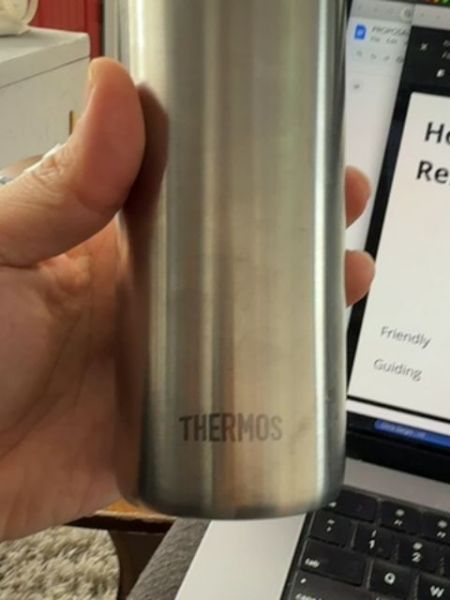
THERMOS
A vacuum-insulated container used to keep beverages hot or cold for extended periods, suitable for both outdoor and indoor use.
1904
Germany
The typography is bold and sans-serif, effectively conveying a sense of strength and reliability. The font is clear and legible, enhancing the utilitarian aspect of the product design. Its simplicity complements the minimalistic aesthetic of the packaging.
The packaging is sleek and minimalistic, emphasizing functionality and durability. The stainless steel exterior gives it a modern and robust appearance, suitable for daily use.
- Invented by James Dewar in 1892.
- The term 'Thermos' has become synonymous with vacuum flasks.
- Widely used for both personal and professional purposes.